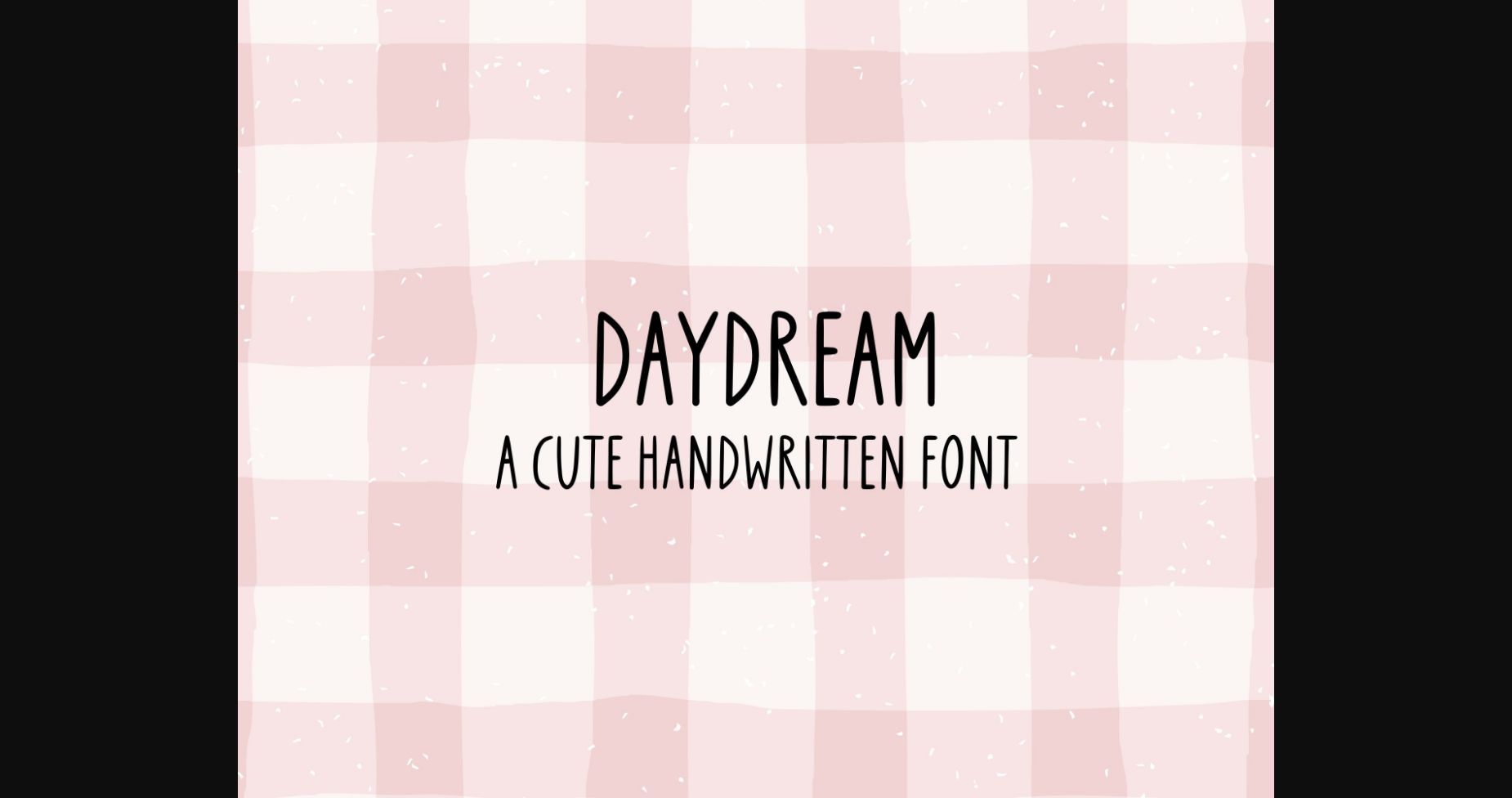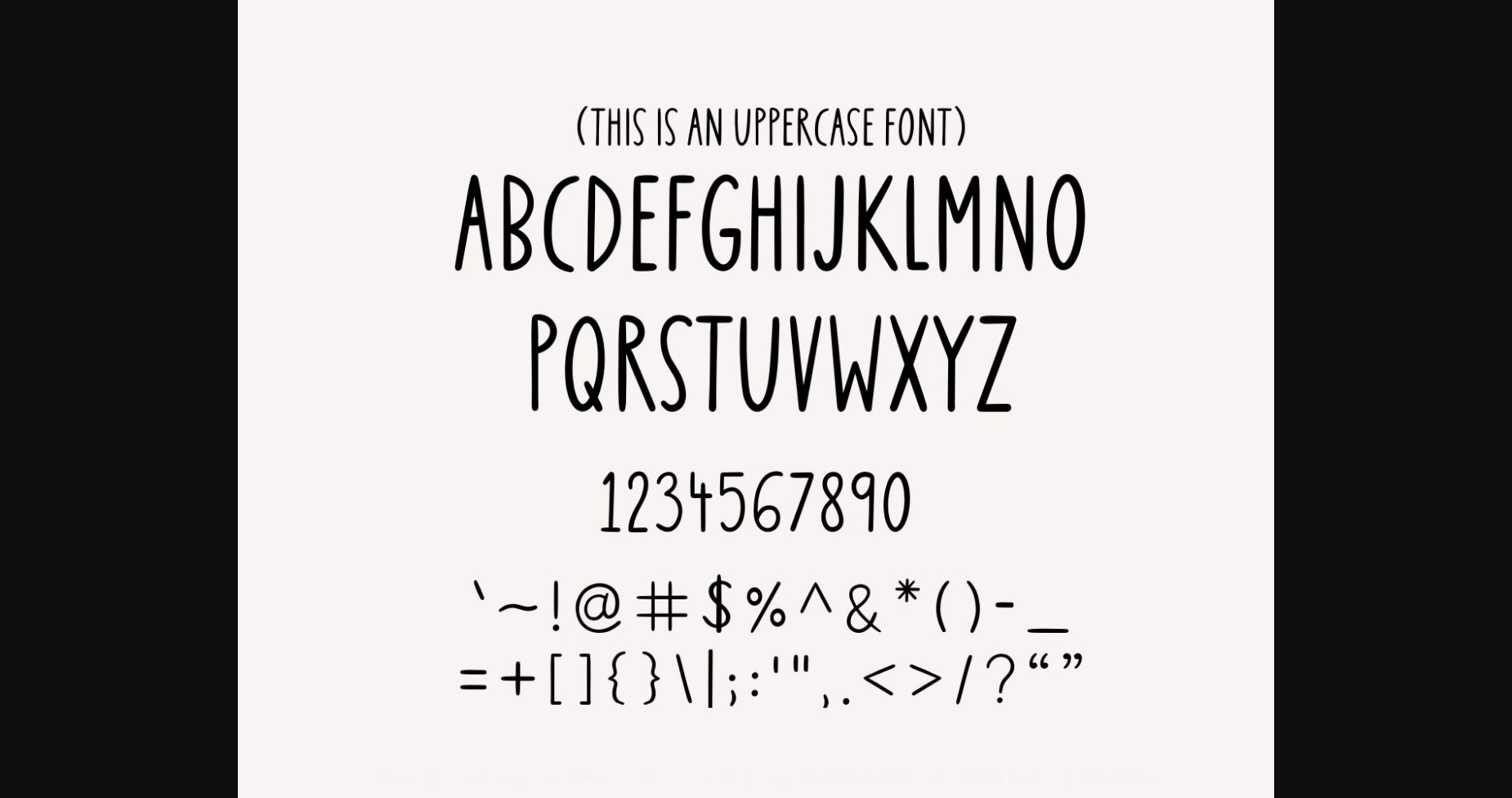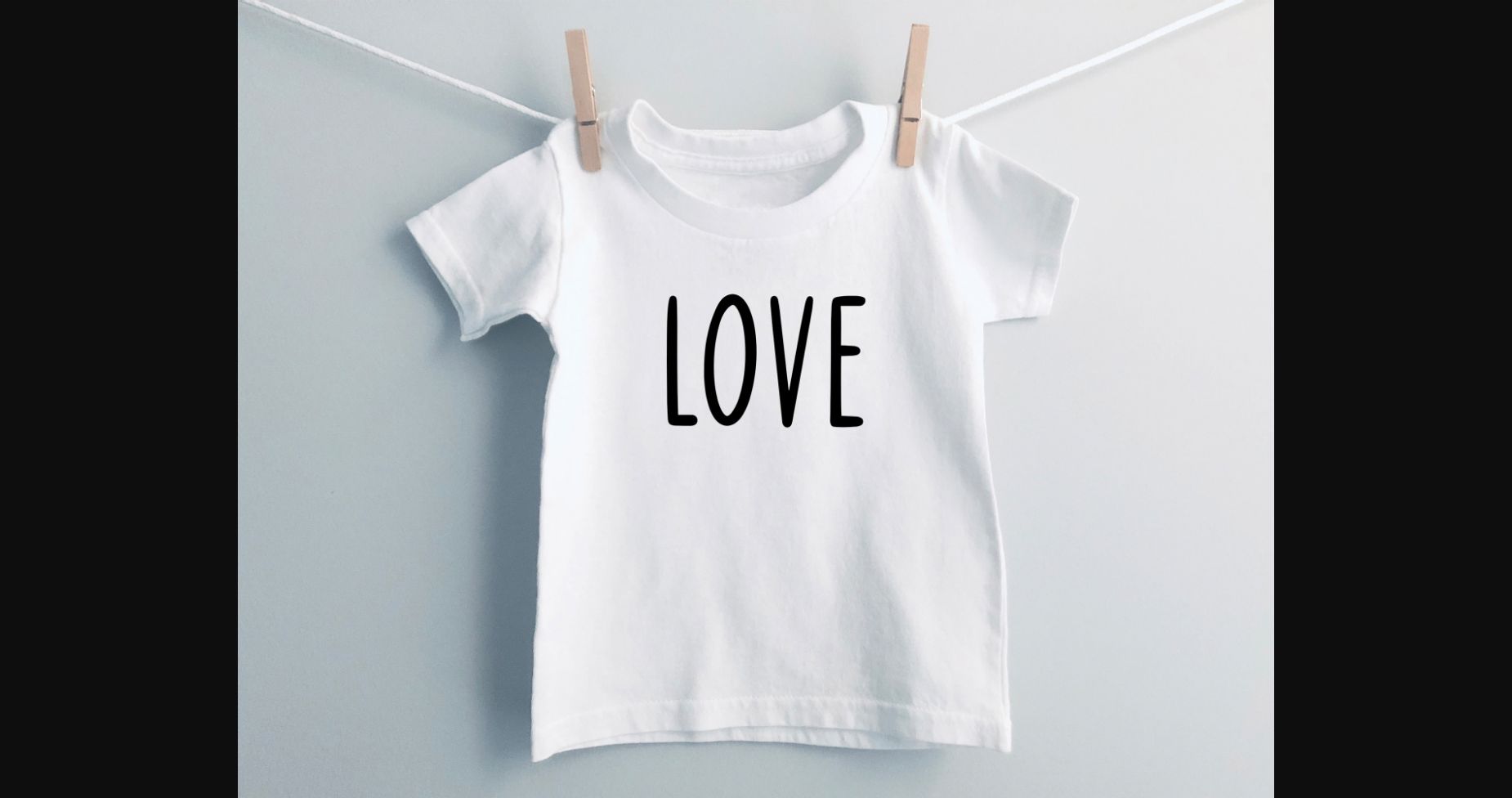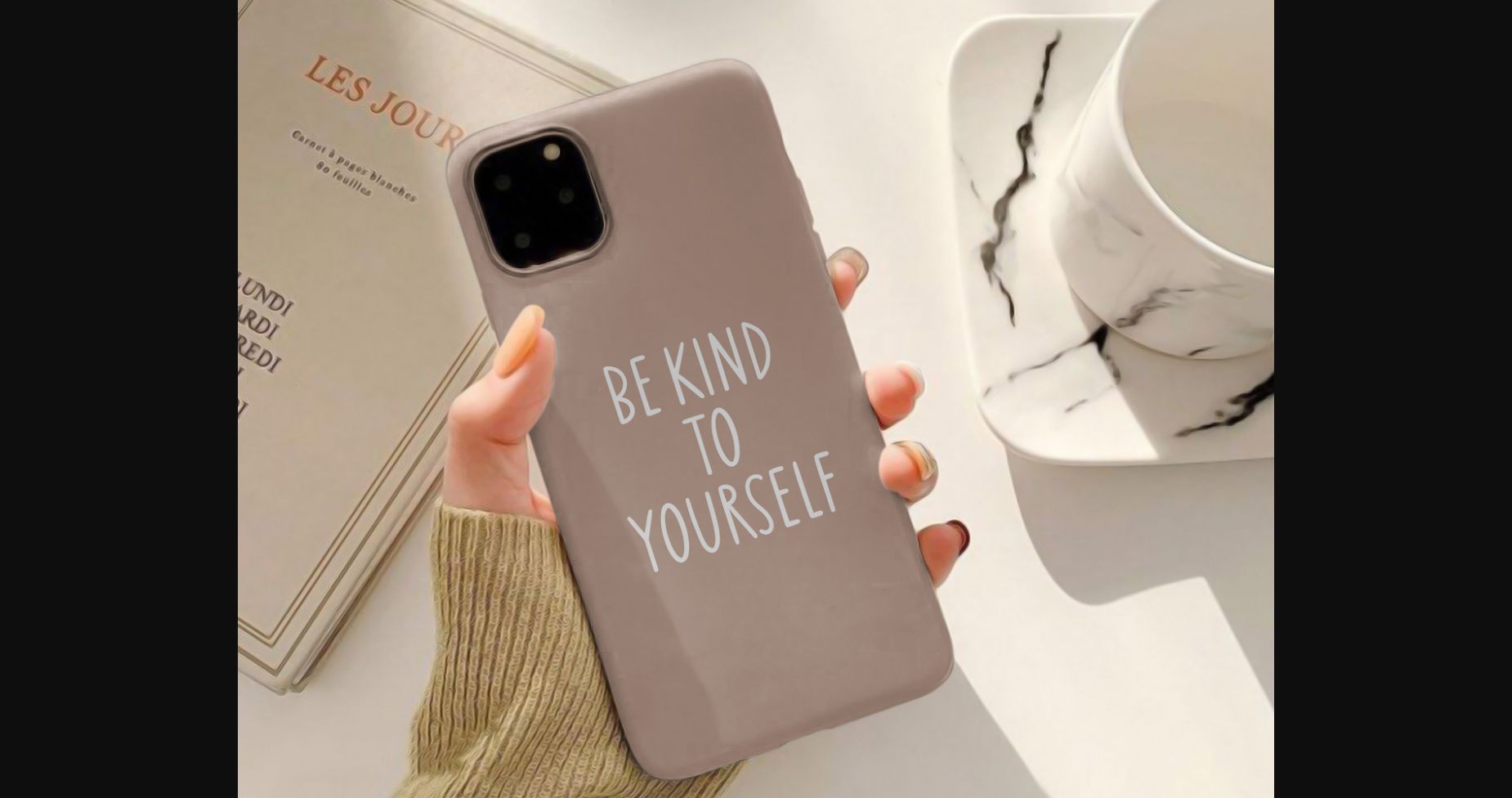
Daydream Font
About Daydream Font
Daydream is a wonderful duo font (sans serif and handwritten). It has splendid and well-balanced characters and as a result, it matches a wide pool of designs. Add it to your most inventive ideas and notice how it makes them come alive!